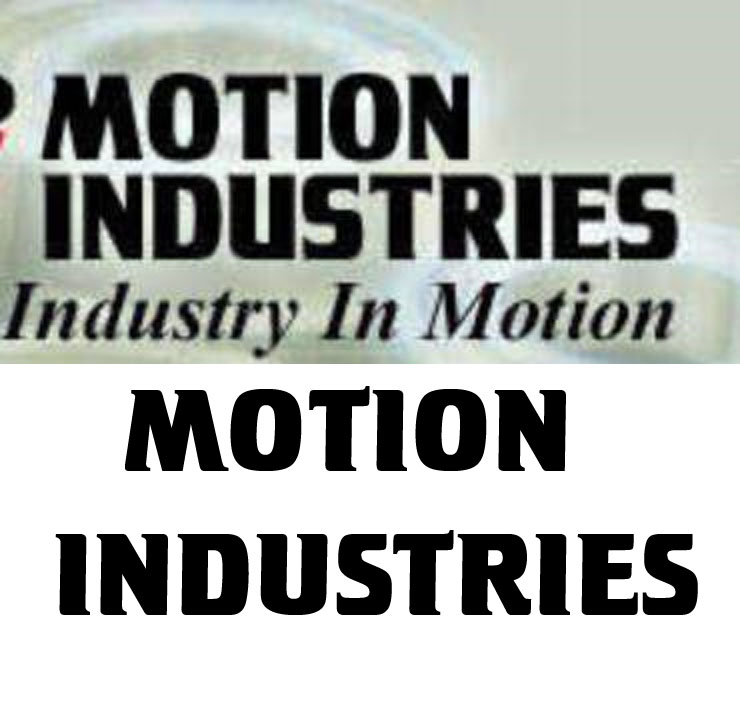
Dave Drane New Member Dec 13, 2005 #2 It looks like it is from the serpentine family but it isn't??? Sorry I can't help.
Baz New Member Dec 13, 2005 #3 Looks like Crillee Bold ... But it is an italic typeface. This one has been straightened back.
Fred Weiss Merchant Member Dec 13, 2005 #4 Not Crillee Bold It's not Crillee Bold even with the slant removed. See attachment. The font is actually from the Serials Designer Collection. It's name is Konvoi. Attachments Motion.jpg 94.9 KB · Views: 46
Not Crillee Bold It's not Crillee Bold even with the slant removed. See attachment. The font is actually from the Serials Designer Collection. It's name is Konvoi.